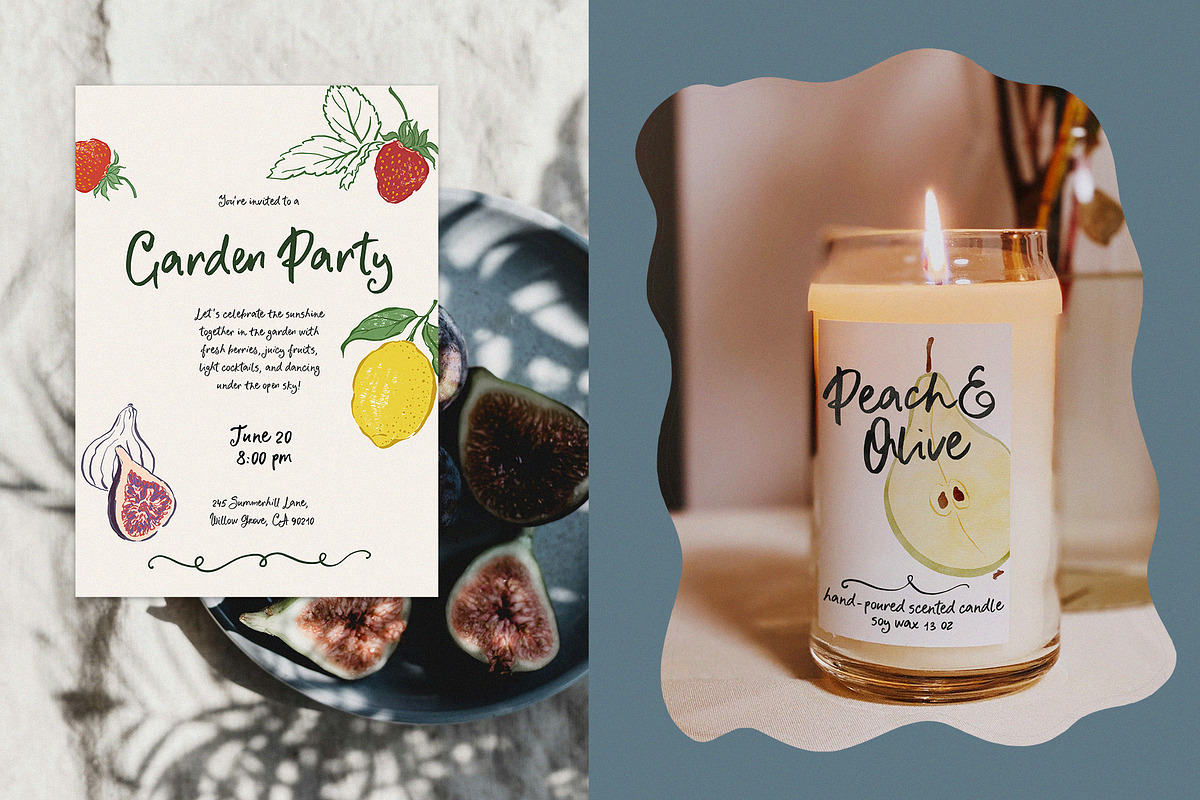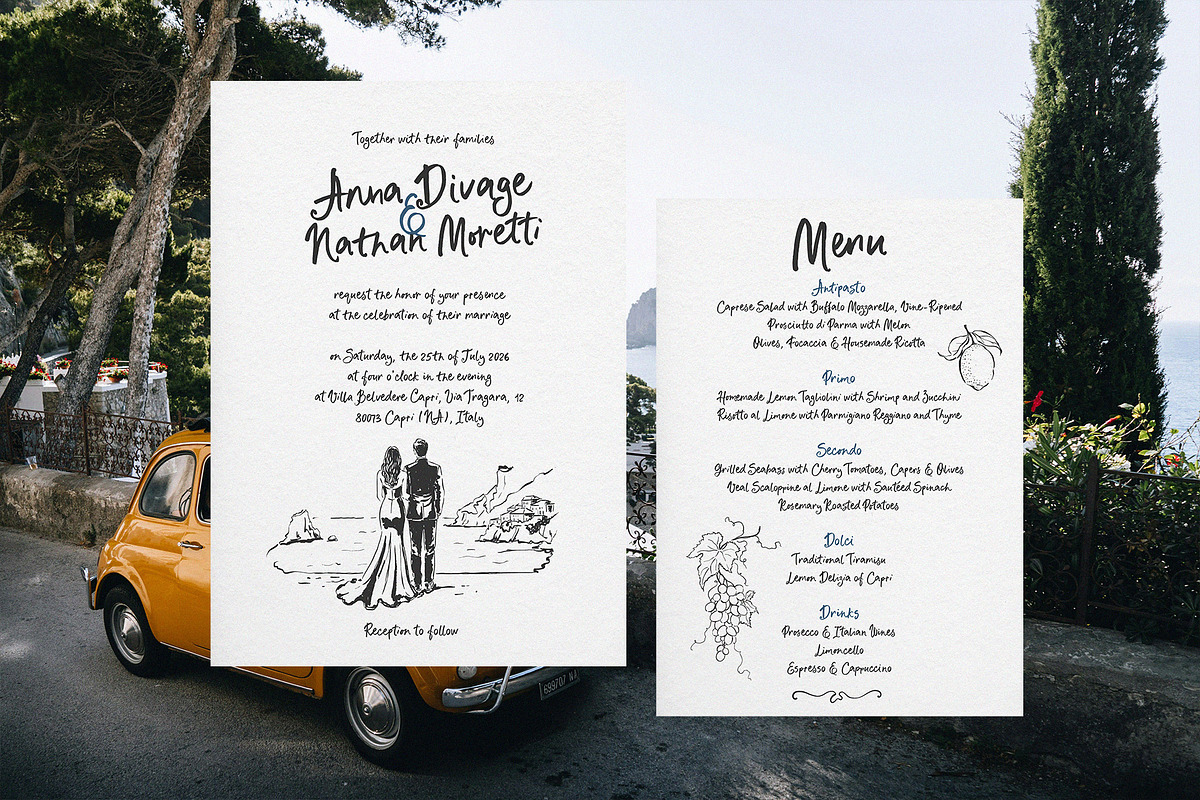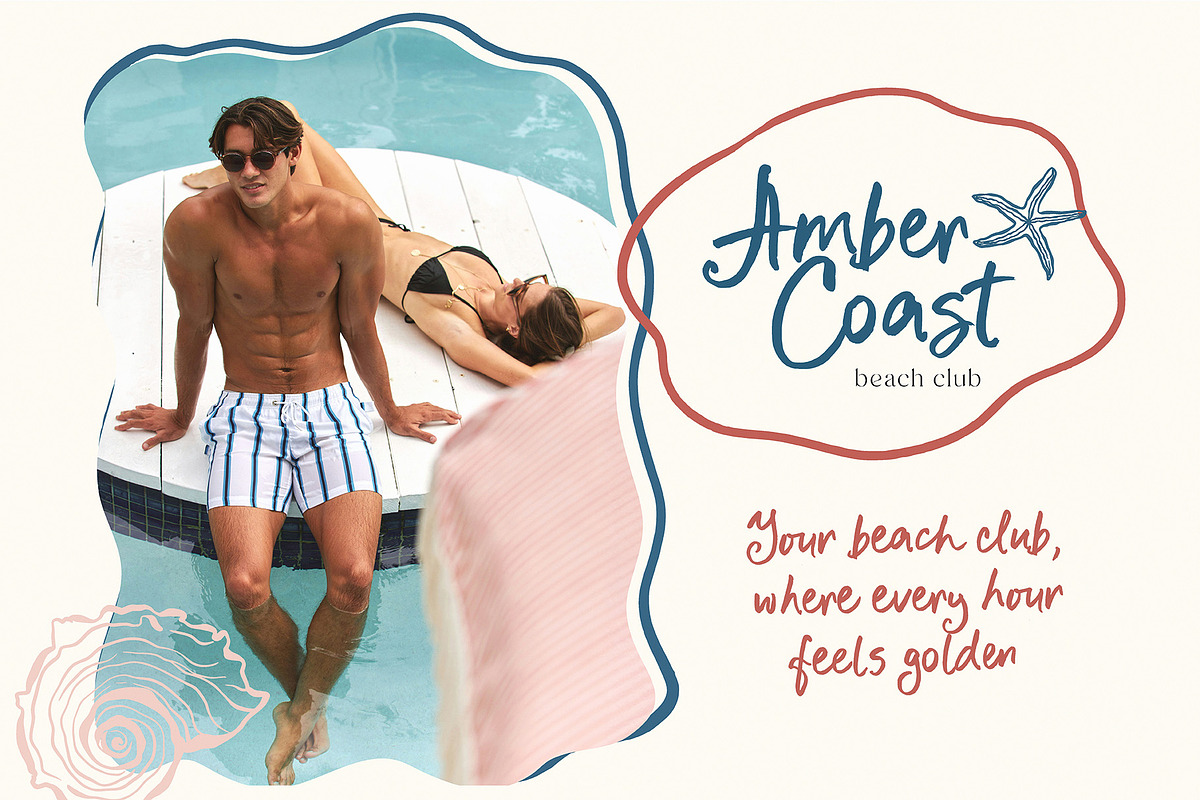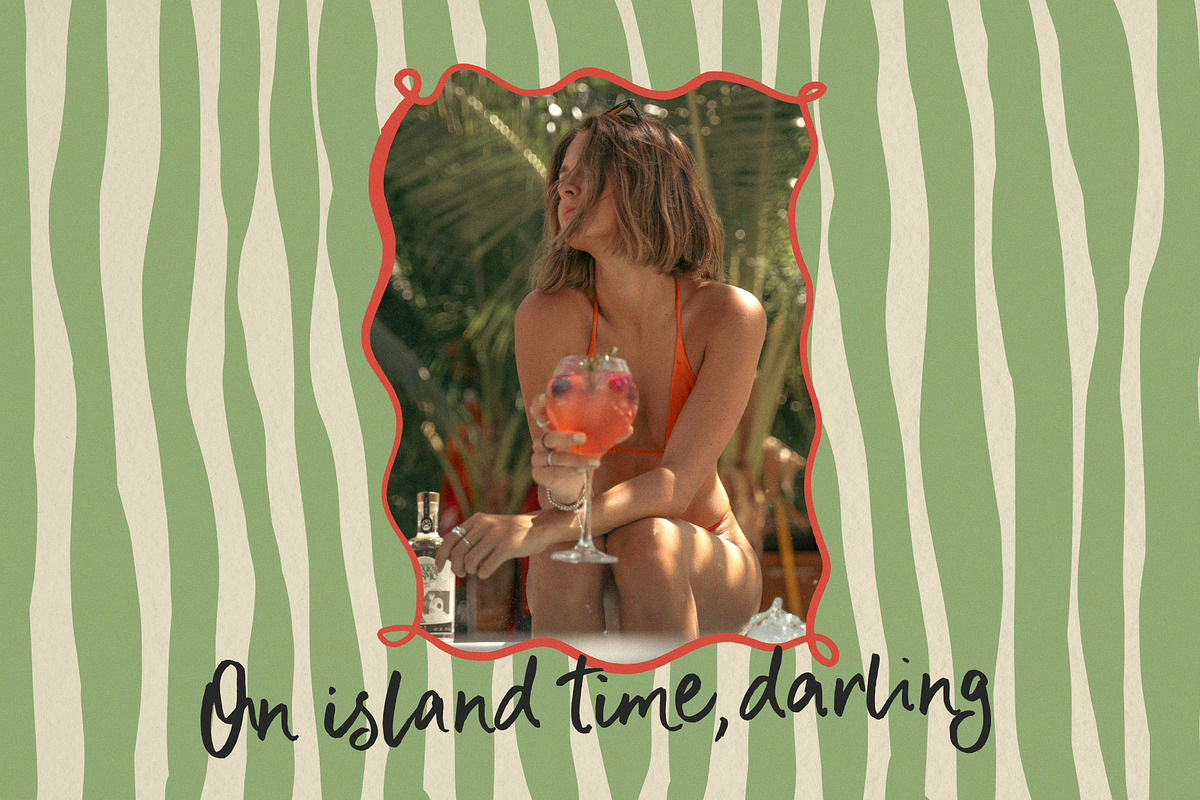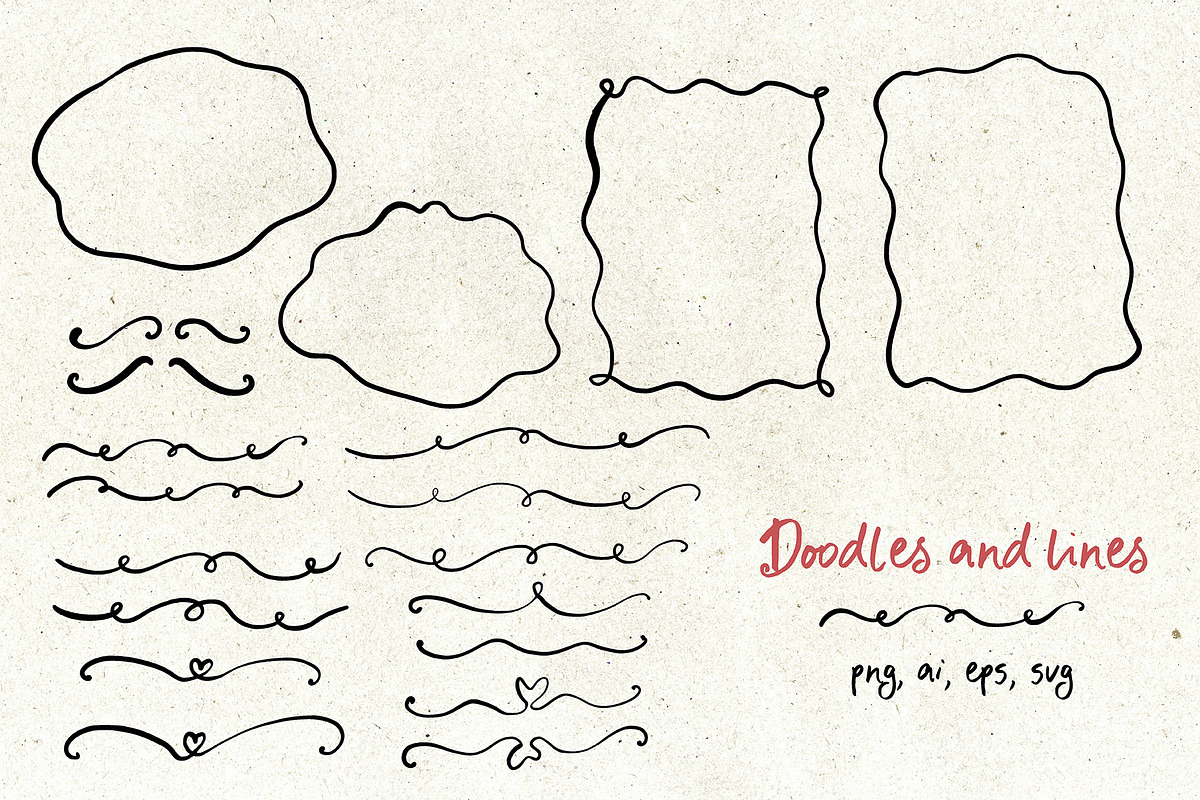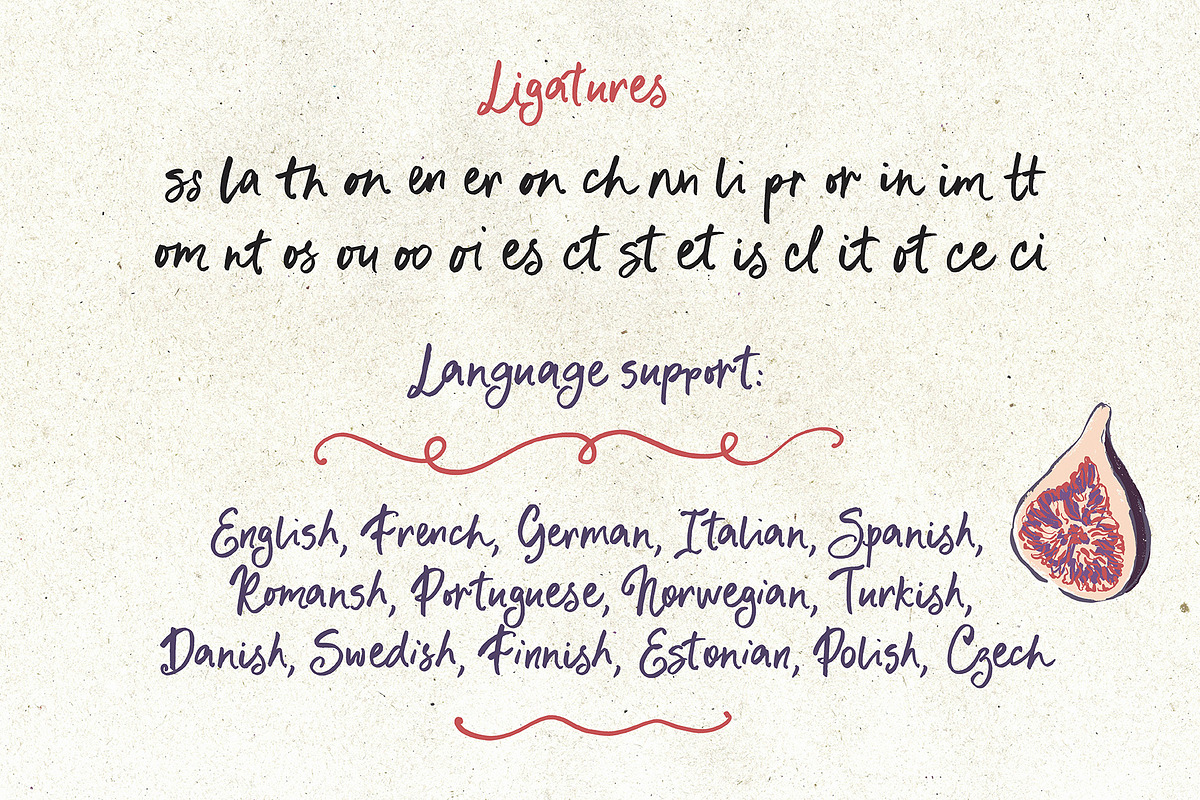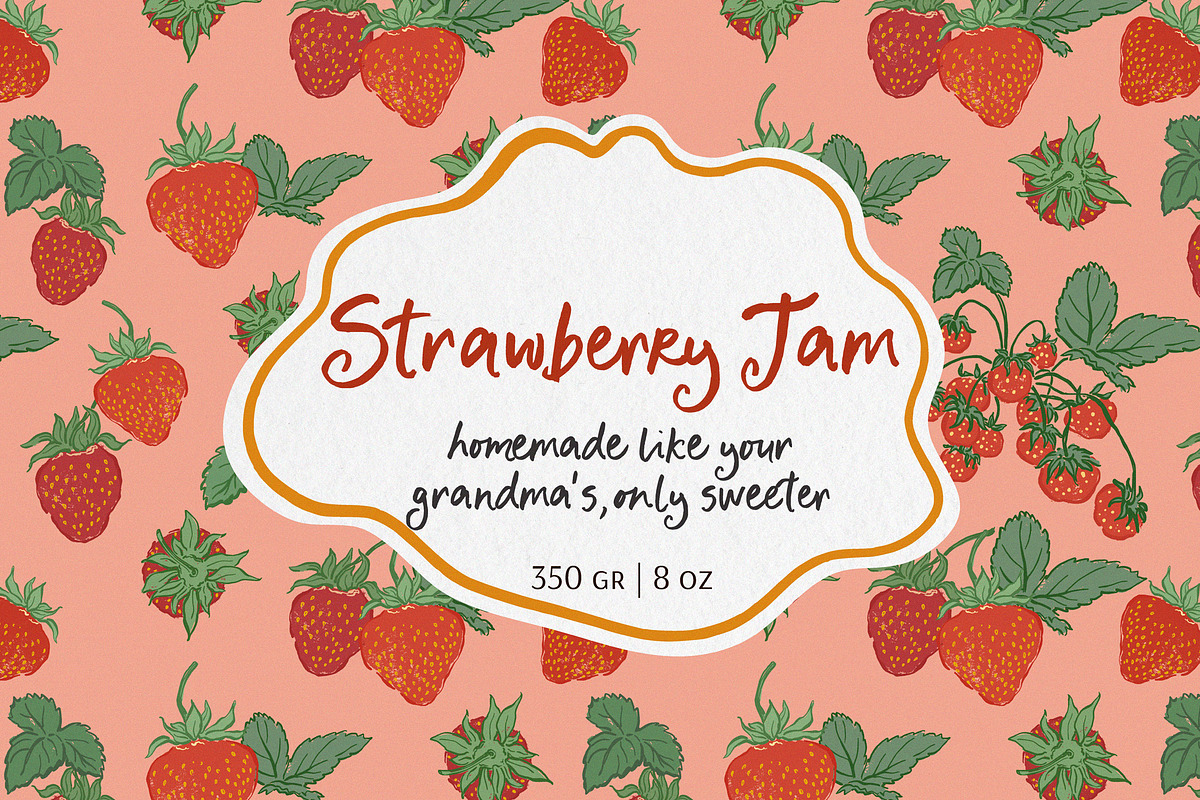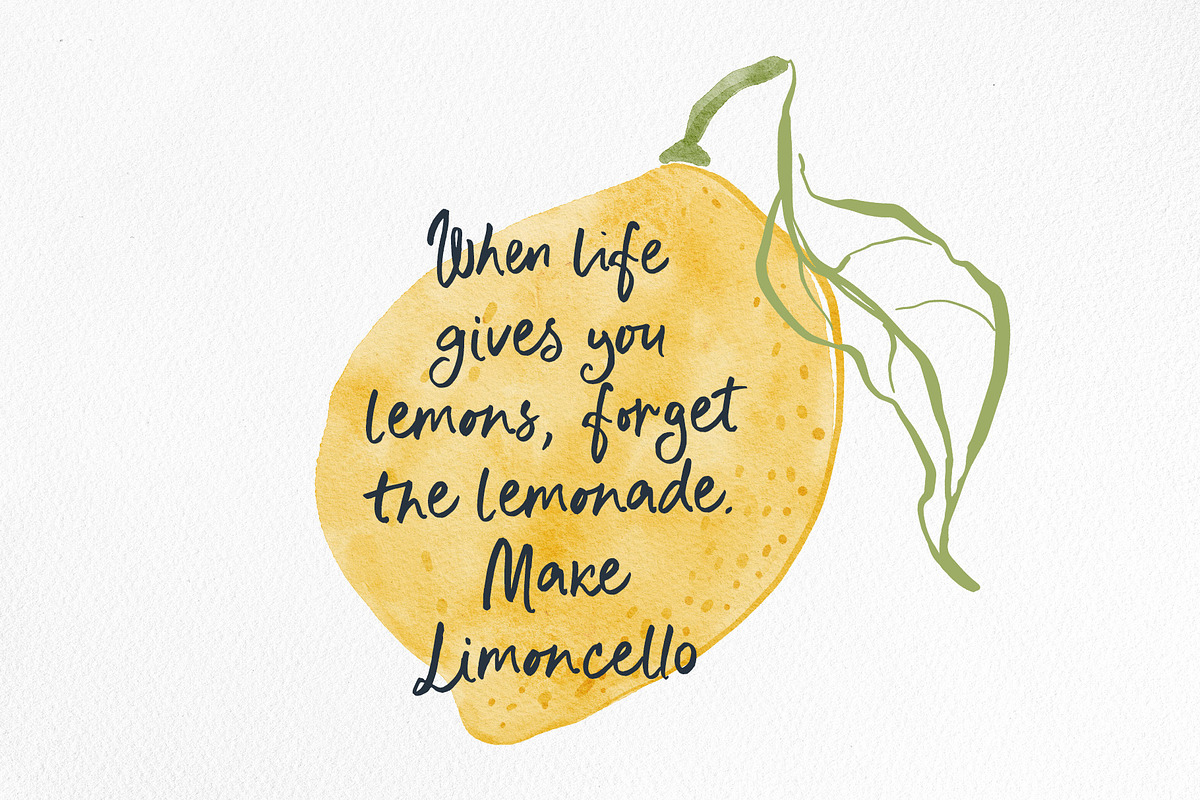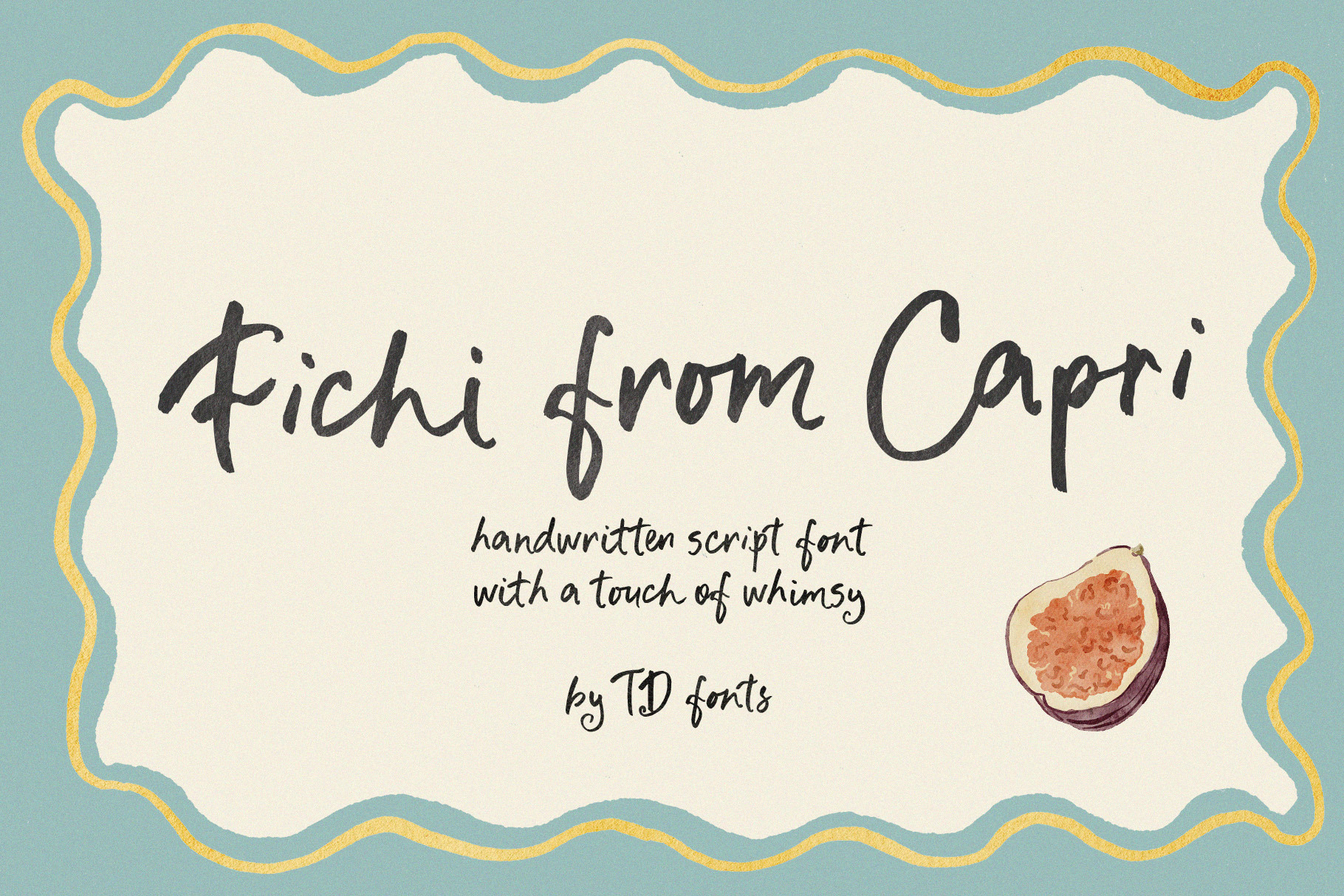
Whimsical font script Fichi Capri
Fichi from Capri is a whimsical handwritten script font with a hint of whimsy — playful, imperfect, and full of the warm, carefree energy of a summer holiday.
It feels like a logo that looks effortless but was crafted with real intention, a wedding invitation that guests keep after the day is over, a label that makes a homemade product feel like a boutique one. Light enough to float on the page, warm enough to make people stop and look twice.
Drawn by hand on paper with a brush pen, this font has visible stroke contrast — thicker on the downstrokes, lighter and fleet on the upstrokes — but worn lightly, without the weight of a heavy brush script. Letters bounce gently off the baseline, lean in unexpected directions, and connect with the natural rhythm of handwriting that has real personality. Delicate swashes and curls on select letterforms add that signature whimsical touch without ever tipping into excess. The result is a font that feels warm, airy, and wonderfully alive — the kind of type that brings coziness and a summer holiday mood to every project it touches.
With an extensive collection of stylistic alternates and ligatures, Fichi from Capri lets you craft expressive lettering styles that are completely your own. Swap letters, build unique combinations, fine-tune every word — this modern calligraphy is made for branding, websites, logo design, and any creative work that deserves a truly custom hand. It's why real buyers come back to this font for logos, brand identities, and wedding invitations: with the right alternates in play, no two compositions need to look alike.
Extensive stylistic alternates and ligatures for expressive, unique lettering
Logo design & brand identity with a handmade, whimsical character
Wedding stationery, invitations & celebration design
Greeting cards, birthday & holiday designs
Homemade & artisan food product labels and packaging
Branding for cafés, bakeries & lifestyle businesses
Websites & digital design with a warm, playful personality
Social media quotes, editorial content & lifestyle graphics
Posters, prints & whimsical wall art
Any project or brand that needs a playful, imperfect, and cozy chic touch
Brush pen handwritten script with natural stroke contrast — thicker downstrokes, lighter upstrokes
Gentle baseline bounce and organic letter rhythm for an authentically hand-drawn feel
Delicate swashes and curls on select letterforms for a whimsical, distinctive character
Extensive stylistic alternates and ligatures — ideal for custom logos and unique lettering compositions